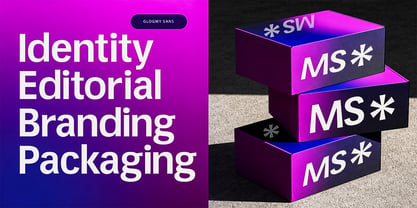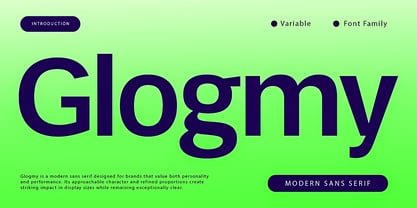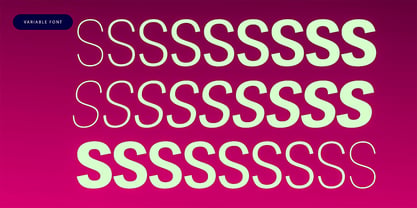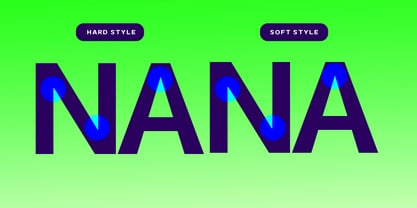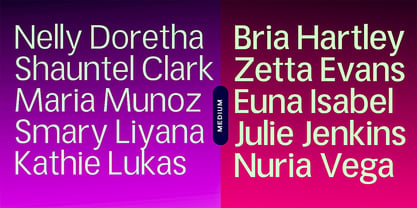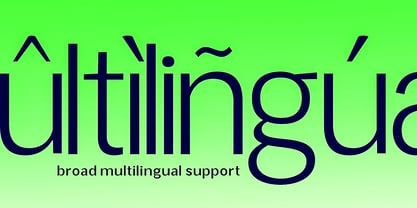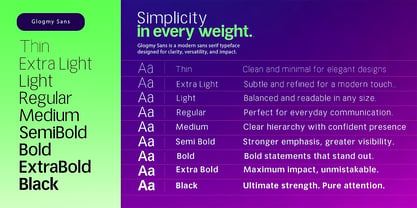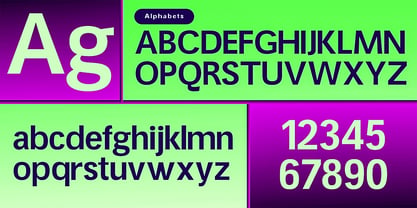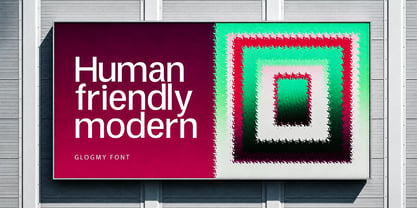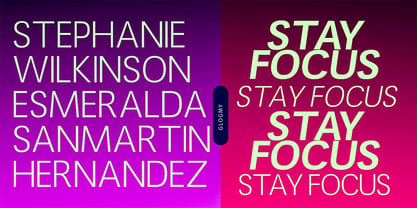
Glogmy
by Aqeela Studio
The Glogmy Font Family was designed by Muhammad Nasir and published by Aqeela Studio. Glogmy contains 145 styles and family package options. More about this family
Glogmy is a modern sans-serif font family equipped with an advanced variable font format, allowing you to effortlessly customize weight and style for ultimate design flexibility. Blending an approachable, friendly character with high-performance typography, its refined proportions create a striking impact in large display sizes while remaining exceptionally clear in body text. It is the perfect, highly adaptable solution for contemporary branding, editorial design, packaging, and digital identities that demand a seamless, modern touch.
Designers: Muhammad Nasir
Foundry: Aqeela Studio